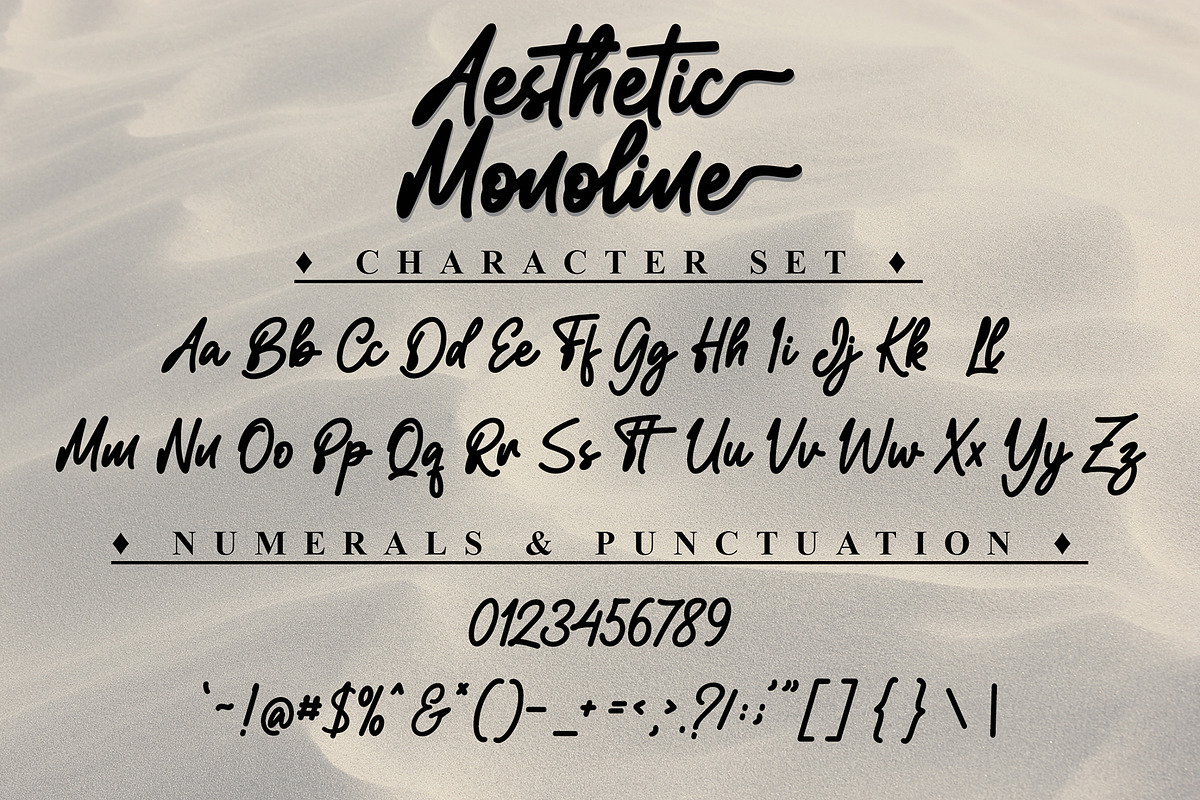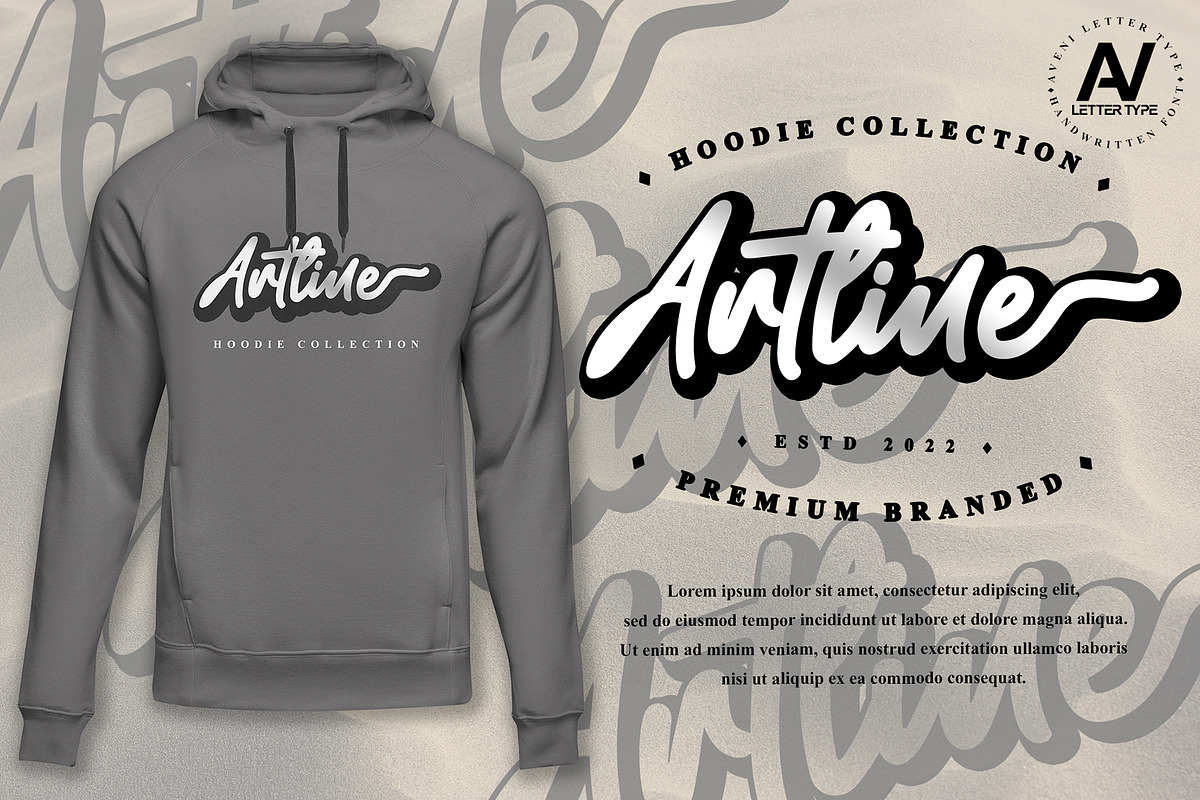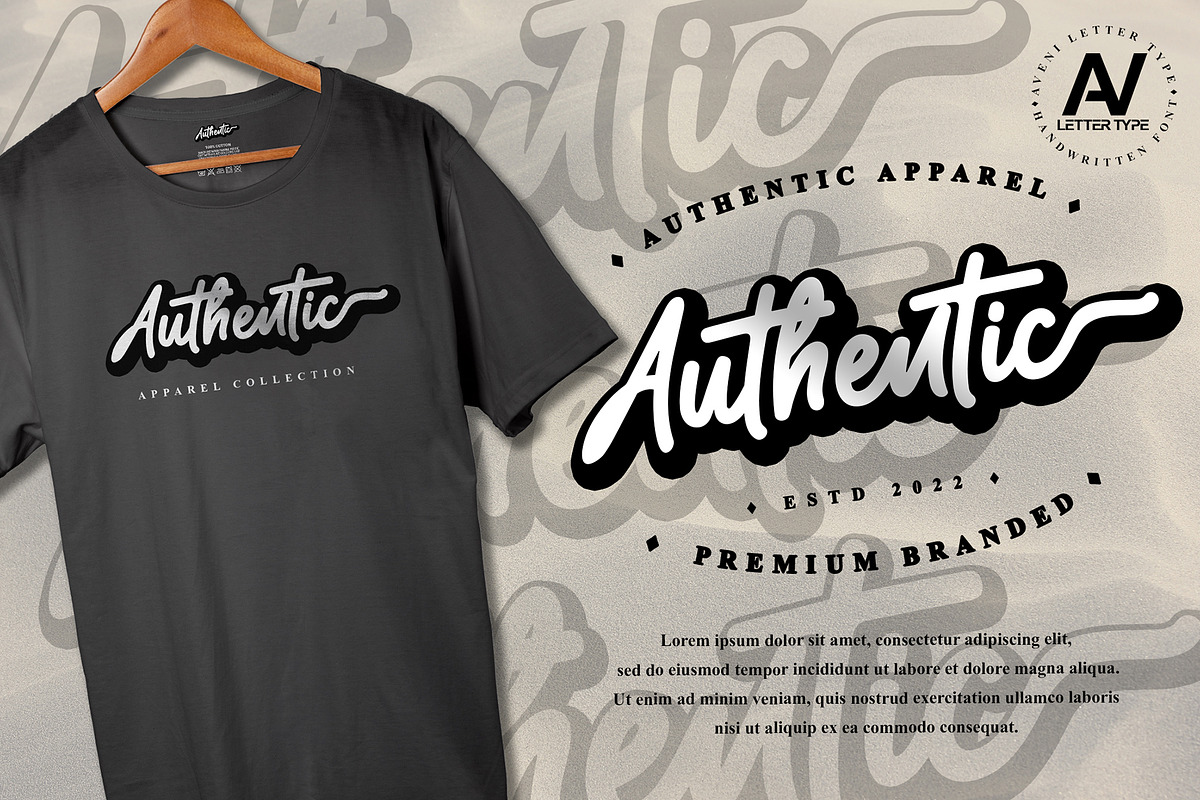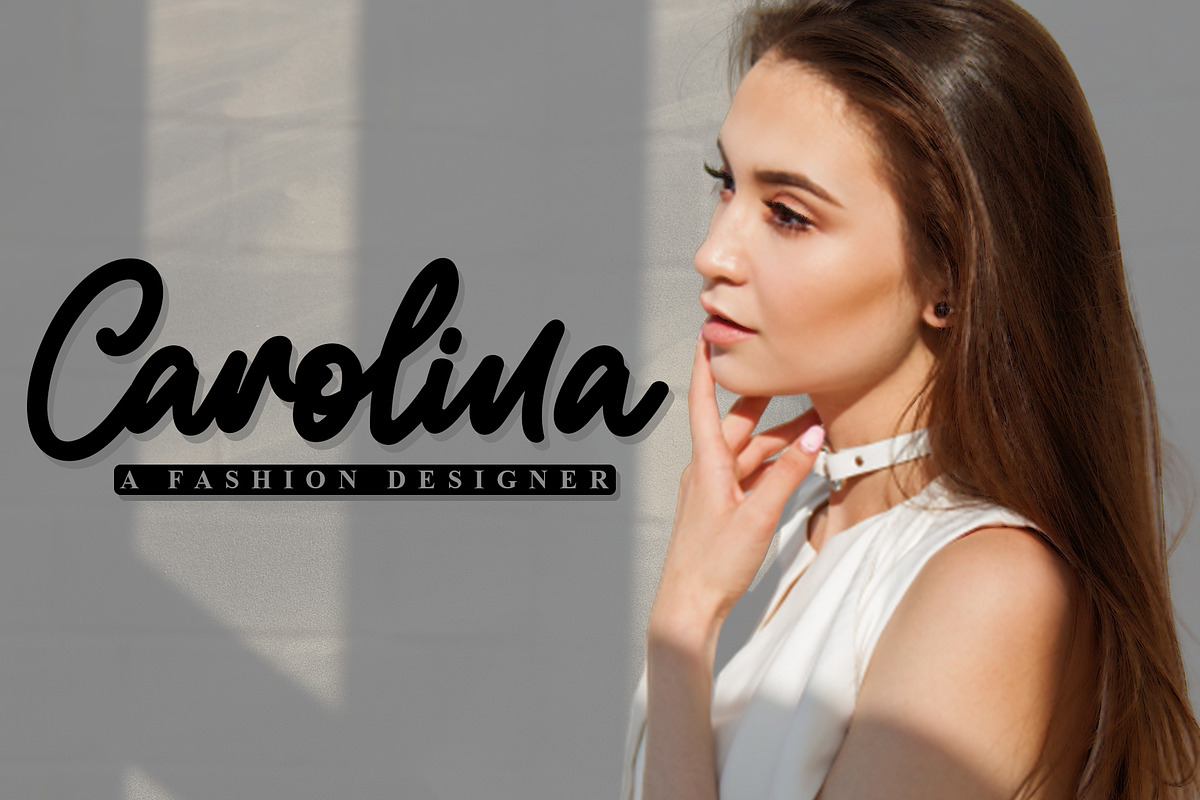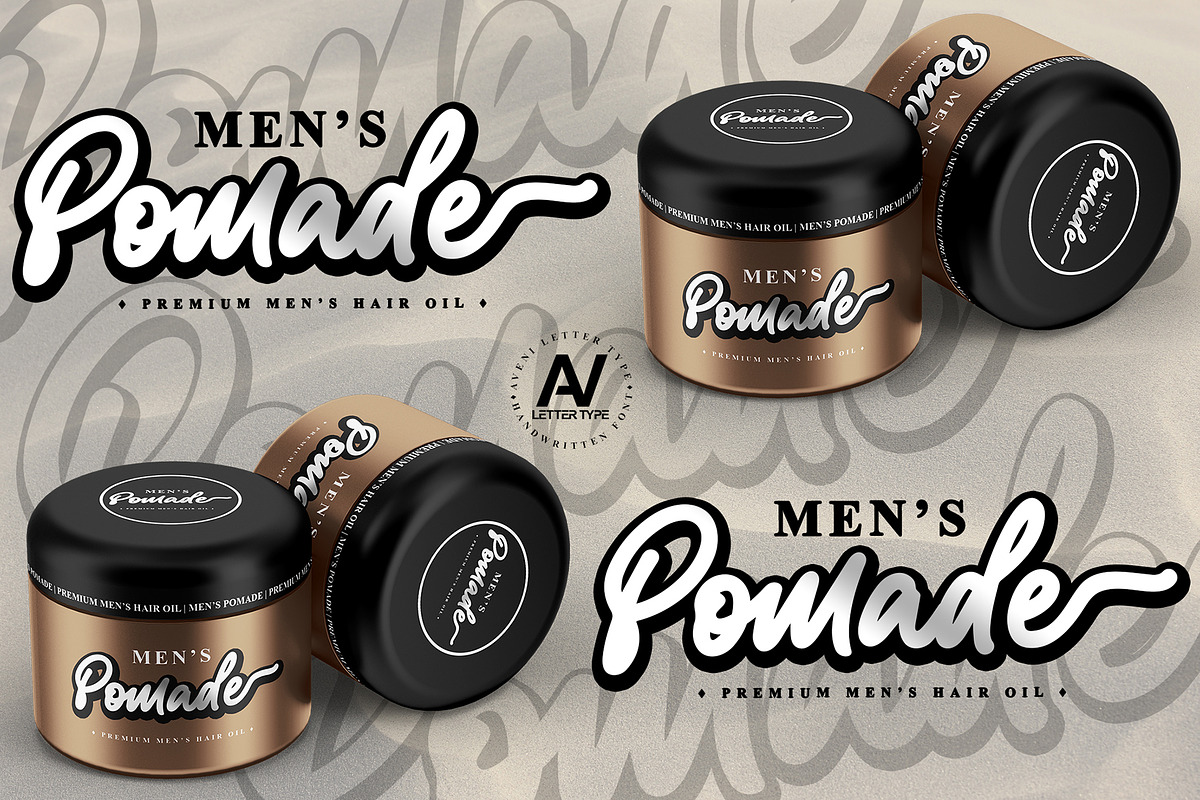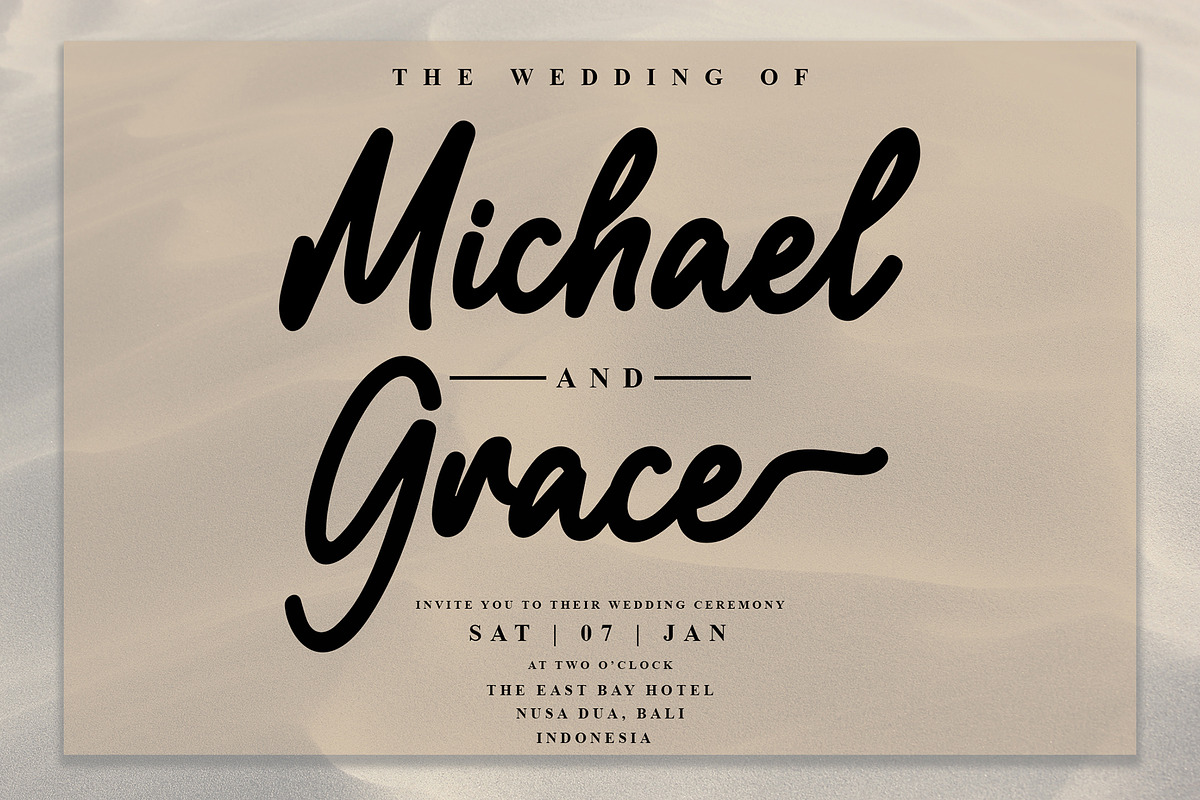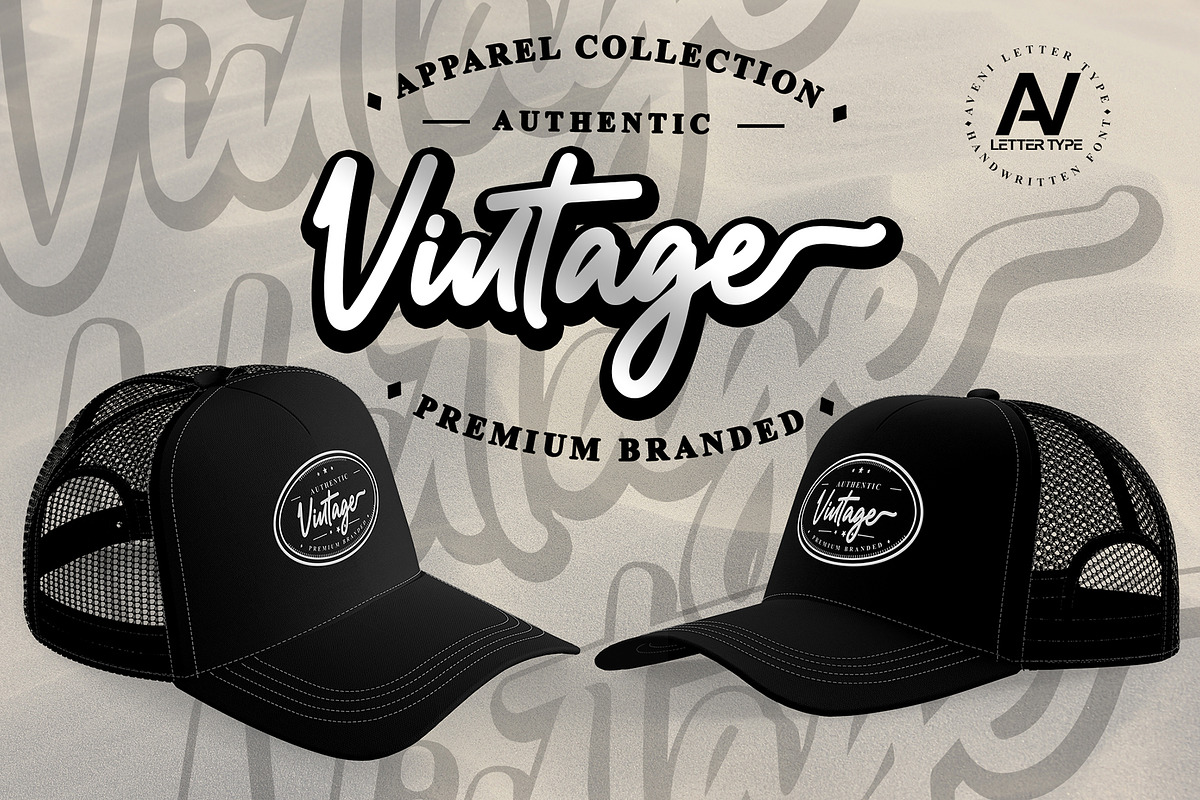
Aesthetic Monoline Handwritten Font
Hi Guys, my name is Aesthetic Monoline, I was born with a handwritten font but still, a monoline style is elegant and has very neat kerning. This font will look great in many projects, for example, you can use it for business cards, cosmetic branding, tote bag branding, wedding invitations, product packaging, headers, posters, merchandise, apparel branding, social media & greeting cards, and so much more!
Numeral & Punctuation
Why Aesthetic Monoline Handwritten Font is worth a look
Aesthetic Monoline Handwritten Font by Aveni Letter Type fits naturally into Branding, posters, packaging, typography.